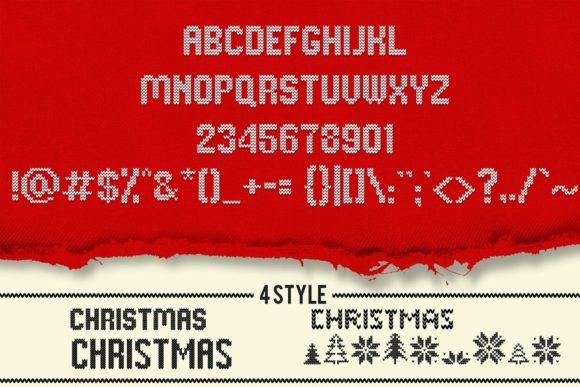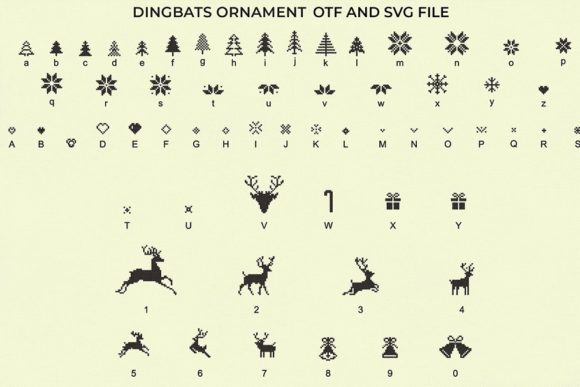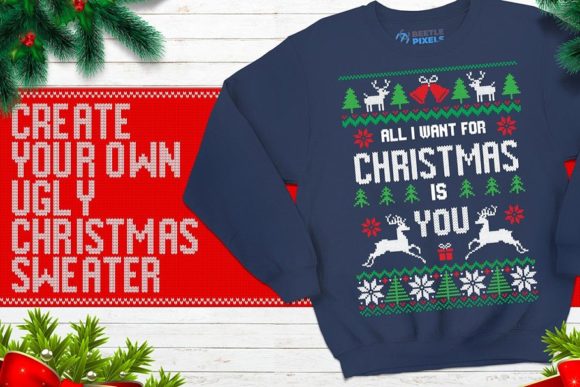
Introduction to My Ugly Christmas Font
As I rummaged through my closet, searching for the perfect holiday sweater to wear to the office party, I stumbled upon a garish, neon-green monstrosity with snowmen and reindeer awkwardly placed on a background of clashing stripes. It was ugly, yet somehow, it was endearing. This moment sparked an idea – why not create a font that captures the essence of these quirky holiday sweaters?
Enter My Ugly Christmas Font, a fun and ironic decorative font designed to add a touch of whimsy to your holiday designs. This free download is perfect for designers looking to add a little extra flair to their projects without sacrificing quality. With a transparent background, it’s easy to place over any image or design element, and its high-quality design makes it a valuable resource for any creative project.
Key Features of My Ugly Christmas Font
- High-quality design resource for creative projects, perfect for adding a unique touch to your designs.
- Unique, hand-drawn design with a transparent background, allowing for easy customization and layering.
- Perfect for adding a playful, festive touch to your designs, making it a great choice for Christmas-themed projects.
Honest Review: My Ugly Christmas Font
As a designer, I’m always on the lookout for unique and quirky design resources to spice up my creative projects. When I stumbled upon “My Ugly Christmas Font”, I was both intrigued and skeptical. After giving it a try, here’s my honest review.
- ✨ The font has a charming, handmade quality that’s perfect for adding a touch of personality to holiday-themed designs.
- ✨ The transparent background option allows for seamless integration with other design elements, making it a great design resource for digital projects.
However, I do have a few concerns:
- ⚠️ The font’s “ugly” aesthetic may not be to everyone’s taste, and some designers may find it too kitschy or unprofessional.
- ⚠️ The font’s high quality is compromised by some minor pixelation issues when scaled up or down.
Overall, I’d say “My Ugly Christmas Font” is a great addition to any designer’s toolkit, but it’s not without its limitations. If you’re looking for a fun and quirky design resource for your holiday projects, this font is definitely worth a try. Just be aware of its potential drawbacks and use it accordingly.
Tips for Getting the Most Out of My Ugly Christmas Font
To get the most out of My Ugly Christmas Font, use it in combination with other festive design elements, such as holly or snowflakes. You can also use this font to create a cohesive brand identity for your holiday marketing materials.
Common Use Cases for My Ugly Christmas Font
My Ugly Christmas Font is perfect for use in holiday greeting cards, social media posts, and marketing materials. You can also use this font to create a festive logo or branding for your holiday-themed business or event.